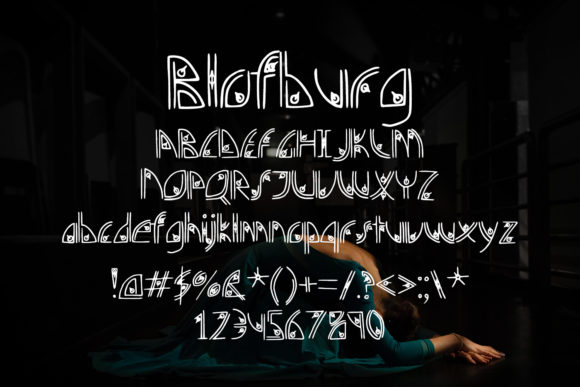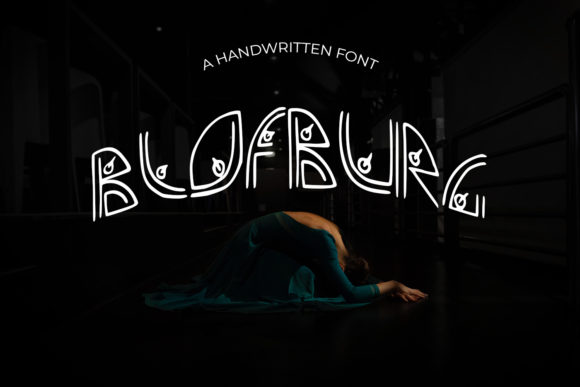
Blofburg Font: The Ultimate Guide to this Quirky and Trendy Display Font
Are you tired of using the same old boring fonts in your designs? Look no further than the Blofburg font! This incredibly unique and interesting looking display font is sure to make each of your designs look outstanding. In this article, we’ll dive into the world of Blofburg font, exploring its features, uses, and benefits for designers and crafters.
What is Blofburg Font?
Blofburg is a display font that stands out from the crowd with its quirky and trendy design. Its unique shape and structure make it perfect for adding a touch of personality to your designs. Whether you’re working on a logo, poster, or social media graphic, Blofburg font is sure to grab attention and leave a lasting impression.
Key Features of Blofburg Font
So, what makes Blofburg font so special? Here are some of its key features:
- Unique and quirky design: Blofburg font has a one-of-a-kind design that’s sure to make your designs stand out.
- Trendy and modern: This font is perfect for designers who want to add a touch of modernity to their work.
- Display font: Blofburg font is specifically designed for display purposes, making it perfect for headlines, titles, and other attention-grabbing elements.
- Easy to read: Despite its quirky design, Blofburg font is surprisingly easy to read, making it perfect for use in a variety of contexts.
Uses of Blofburg Font
So, how can you use Blofburg font in your designs? Here are some ideas to get you started:
- Logos and branding: Blofburg font is perfect for creating unique and memorable logos that will help your brand stand out.
- Posters and flyers: Add a touch of personality to your posters and flyers with Blofburg font.
- Social media graphics: Use Blofburg font to create eye-catching social media graphics that will grab attention and drive engagement.
- Packaging design: Blofburg font is also perfect for packaging design, adding a touch of whimsy and personality to your product packaging.
Benefits of Using Blofburg Font
So, why should you choose Blofburg font for your designs? Here are some benefits to consider:
- Stand out from the crowd: Blofburg font is sure to make your designs stand out from the crowd, helping you to grab attention and leave a lasting impression.
- Add personality to your designs: This font is perfect for adding a touch of personality and whimsy to your designs.
- Easy to use: Blofburg font is surprisingly easy to use, even for designers who are new to working with unique and quirky fonts.
- Versatile: Blofburg font can be used in a variety of contexts, from logos and branding to posters and social media graphics.
Tips for Using Blofburg Font
Here are some tips for getting the most out of Blofburg font:
- Use it sparingly: Blofburg font is a bold and attention-grabbing font, so use it sparingly to avoid overwhelming your designs.
- Experiment with different colors: Blofburg font looks great in a variety of colors, so don’t be afraid to experiment and find the perfect hue for your design.
- Pair it with other fonts: Blofburg font pairs well with a variety of other fonts, so don’t be afraid to get creative and try out different combinations.
In conclusion, Blofburg font is an incredibly unique and interesting looking display font that’s sure to make each of your designs look outstanding. With its quirky and trendy design, ease of use, and versatility, Blofburg font is perfect for designers and crafters who want to add a touch of personality to their work. Whether you’re working on a logo, poster, or social media graphic, Blofburg font is sure to grab attention and leave a lasting impression.